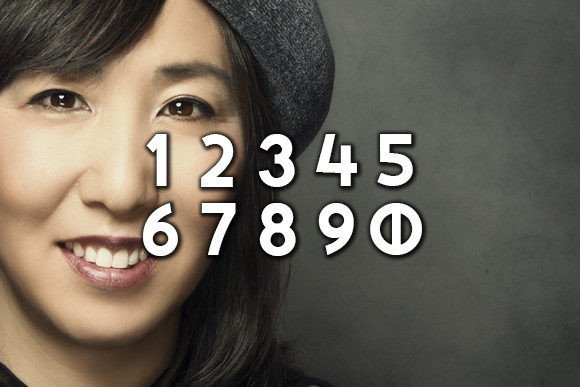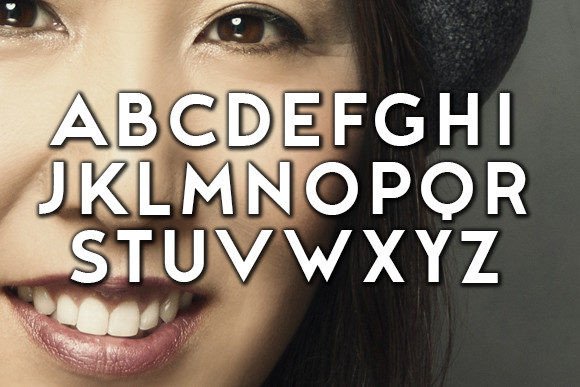
I still remember the frustration of working on a project, hours spent crafting the perfect design, only to hit a roadblock: finding the right font. My client wanted something modern, cool, and eye-catching for their poster campaign, but I was stuck in a font rut. That’s when I stumbled upon Anya Font, a game-changing sans serif font that instantly elevated my designs. In this article, I’ll share my experience with Anya Font, its features, and how to make the most of it in your designs.
An Honest Review of Anya Font
- ✨ Modern and sleek design: Anya Font boasts a clean and contemporary look that’s perfect for a wide range of design projects.
- ✅ Versatility: This font is incredibly versatile, making it suitable for posters, flyers, t-shirts, and more.
- 💡 Easy to read: Anya Font’s clear and legible design ensures that your message gets across, even at smaller font sizes.
While Anya Font is an excellent choice, there are a few minor considerations to keep in mind:
- 🤔 Limited character set: Anya Font might not have an extensive character set, which could limit its use in projects requiring a wide range of special characters.
- ⚠️ Not ideal for body text: Due to its sleek and modern design, Anya Font might not be the best choice for lengthy body text, as it can be a bit too stylized for easy reading.
The Story Behind Anya Font
Anya Font was designed with the modern designer in mind. Its creator, a talented typographer, aimed to craft a font that was both stylish and functional. Inspired by the urban landscape and modern architecture, Anya Font is the perfect blend of form and function.
| What is Anya Font best suited for? | Anya Font is perfect for designs that require a modern and sleek look, such as posters, flyers, and t-shirts. |
| Is Anya Font available in different weights? | Anya Font might be available in a limited range of weights. Check with the font creator or distributor for more information. |
| Can I use Anya Font for body text? | While Anya Font is legible, it might not be the best choice for lengthy body text due to its stylized design. |